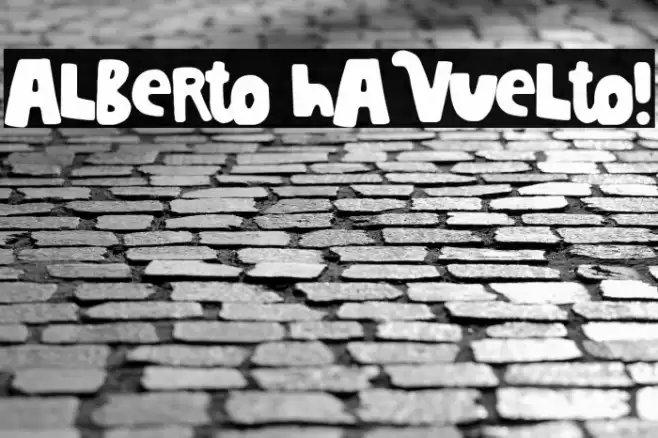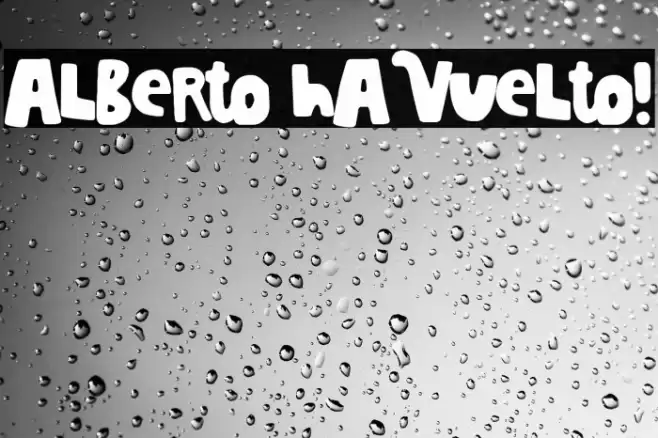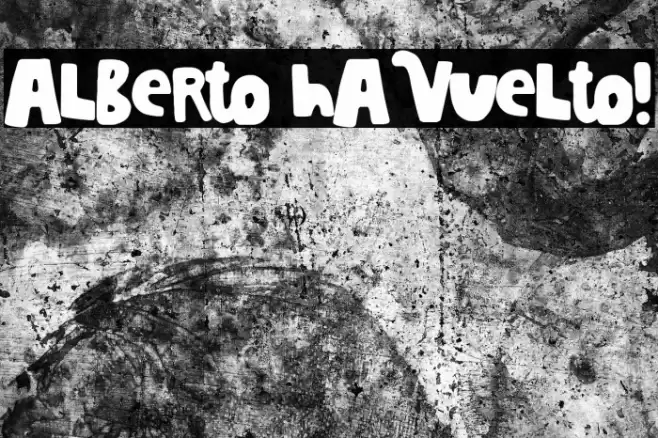
Alberto ha Vuelto! Font
Alberto ha Vuelto! Description
This font features a playful and bold style with exaggerated curves and a hand-drawn aesthetic. The letters are thick and rounded, giving a sense of whimsy and creativity. The uppercase and lowercase letters maintain a consistent style, with some characters having unique flourishes that add to the font's charm. The numbers and special characters are equally bold and expressive, making them stand out. This font is ideal for projects that require a fun and informal touch, such as children's books, posters, or creative branding.
A playful, bold, and hand-drawn font with exaggerated curves from Cartoon fonts.
- Proposed Projects: Children's books, posters, creative branding, and playful invitations.
- Overall Style: Playful and whimsical